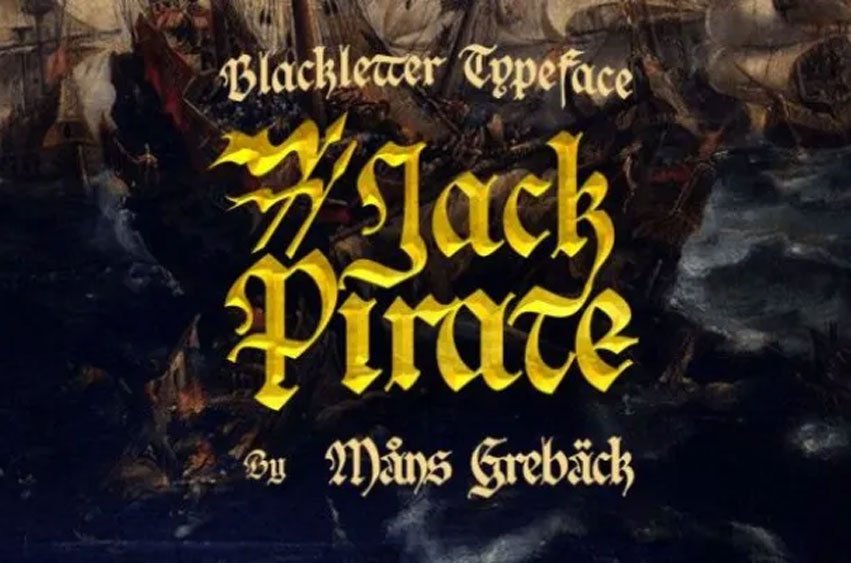
Jack Pirate Font
Jack Pirate Font is the result of the vintage textured book covers and packages design. It is very Victorian in nature with a modern edge. It is capable of developing almost every type of design projects such as Greeting Cards, Wedding design, and many more.
With one of the Jack Pirate Fonts the project will be more alive and vivid than ever, you just need to use your imagination.